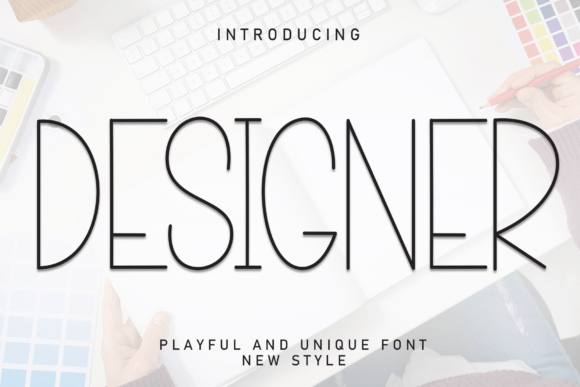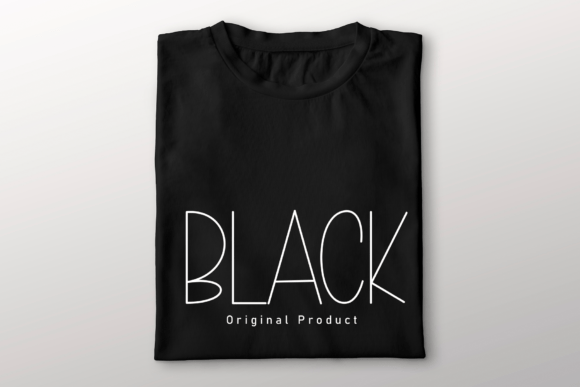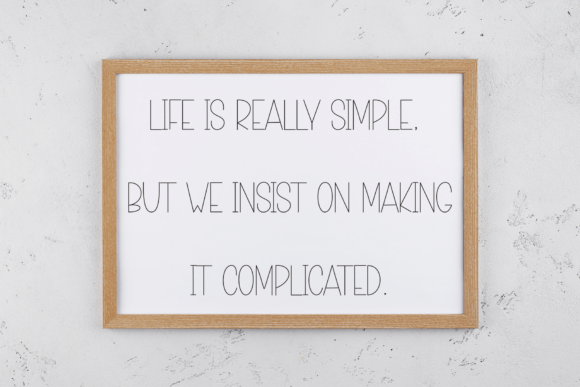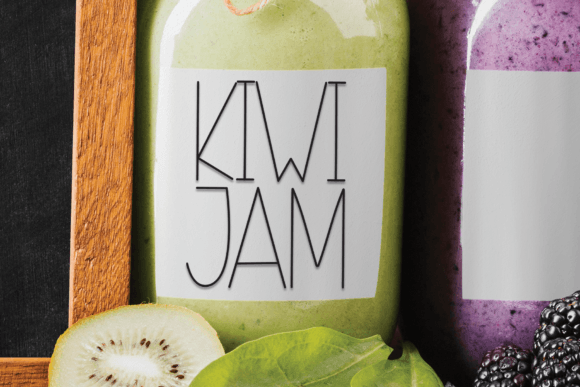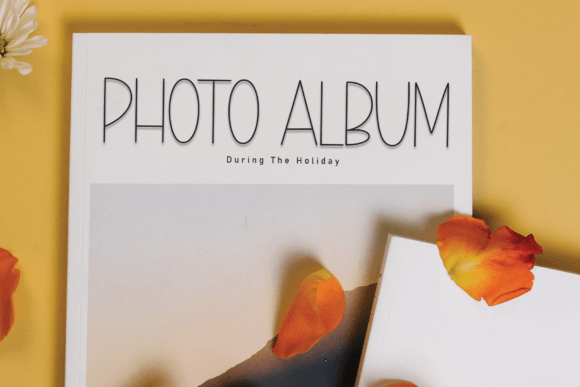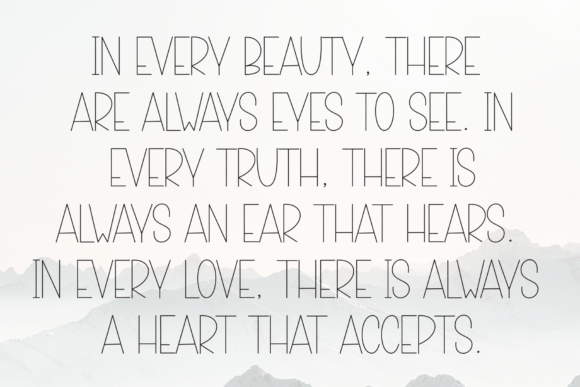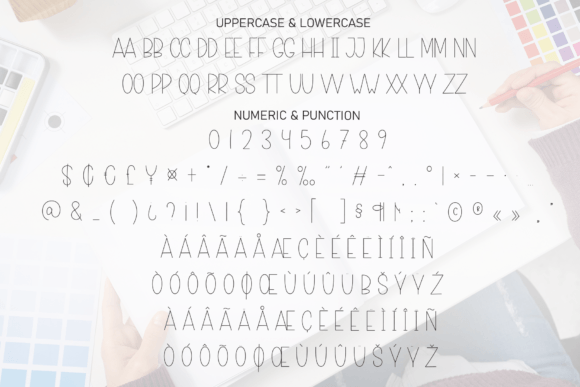
Designing to Impress: The Power of a Perfect Font
Have you ever been stuck on a project, staring at a blank page, trying to conjure up the perfect combination of words and images to grab your audience’s attention? It’s a common creative conundrum, but one that can be solved with the right tools. For designers, the key to unlocking a truly captivating visual identity often lies in the subtle yet powerful world of typography.
That’s where Designer Font comes in – a type of text style that’s specifically designed to make a statement without overwhelming the senses. With its sleek, modern aesthetic and narrow, elongated lines, this font is perfect for headlines or titles where every inch of space counts. Whether you’re creating a bold brand identity or a striking advertisement, Designer Font is an invaluable asset in any designer’s toolkit.
Designer Font Key Features
- Unique Characteristic: The font features a unique blend of modern and traditional design elements, resulting in a distinctive and eye-catching visual style.
Designer Font Review
I recently had the chance to work with the ‘Designer Font’ and I must say it’s a mixed bag. Here are my thoughts.
- Highly customizable: The font can be easily adjusted to fit any design style, from modern to traditional.
- Large character set: The font includes a wide range of characters, including international symbols and punctuation marks.
- Clear and readable: The font is designed to be easy on the eyes, making it perfect for body text and headings.
- Not ideal for titles: While the font is clear and readable, it may not be the best choice for bold, eye-catching titles.
- Lack of unique flair: Compared to other fonts, ‘Designer Font’ feels a bit generic and lacks a distinctive personality.
- Not suitable for bold typography: The font’s design may not be effective when used in bold or italic styles.
The ‘Designer Font’ is a solid, middle-of-the-road choice for designers. While it may not stand out in a crowded market, it’s a reliable option that gets the job done. If you’re looking for a versatile font that’s easy to work with, ‘Designer Font’ might be worth considering. However, if you’re looking for something with more personality or flair, you may want to explore other options.
Designer Font is ideal for creative projects, such as:
1. Branding and logos
2. Infographics and visualizations
3. Print materials, such as business cards and brochures
For optimal results, use Designer Font in combination with other